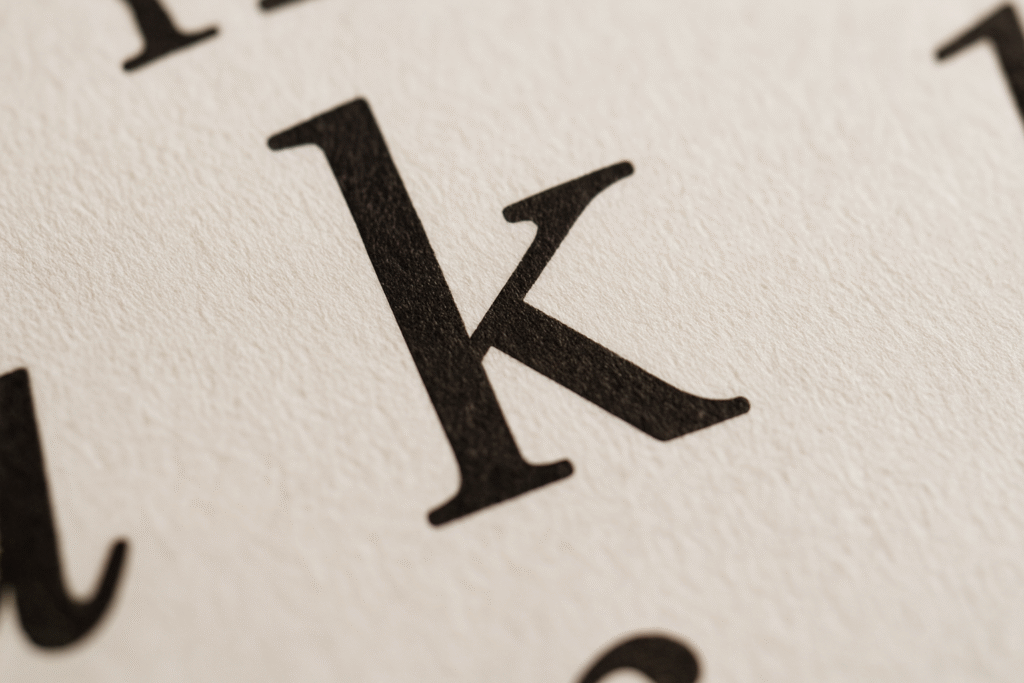
Exploring the Letter “k” — A Kick of Character in the Alphabet
Welcome back to our alphabet exploration series! Today, we set our sights on the spirited, quirky, and slightly rebellious letter “k.” Unlike its neighbors, “k” dances to its own rhythm—often silent, sometimes sharp, but always unforgettable. Whether leading a “kick,” hiding in a “knot,” or bringing quirk to “kaleidoscope,” this letter carries both historical weight and a modern flair.
A Peek into “k”’s Past: Historical Roots
The letter “k” has its roots in the ancient Semitic language where it was known as kaph, which meant “palm of the hand.” The shape resembled an open hand, and its phonetic value was similar to today’s “k.” From there, it made its way into the Greek alphabet as kappa, keeping both its name and sound mostly intact.
The Etruscans and then the Romans adopted kappa, although Latin preferred the letter “c” for the same hard /k/ sound. The letter “k” remained in the Roman alphabet but was seldom used—mainly reserved for abbreviations (like Kalends, the first day of the month in Roman calendars).
It wasn’t until the development of English from Old Germanic and Anglo-Saxon roots that “k” began clawing its way back into usage. And oh, how it made a comeback.
The “Knight” in Shining Armor: Silent but Strong
If you’ve ever wondered why we write “knight” with a “k” when the sound is completely absent, you’re not alone. This comes from Old English, where “kn” was once pronounced as a hard “k” followed by an “n” sound. Over time, the pronunciation softened and the “k” became silent—but the spelling stuck.
Think “knee,” “knock,” “knife,” and “know.” These are all remnants of an older English, frozen in time. So, while “k” may not always make a sound, it still leaves a strong impression.
Typographic Anatomy of “k”
In typography, the lowercase “k” is a fascinating study in balance. It typically consists of a vertical stem and two diagonals—one rising and one falling—that connect at or near the midpoint of the stem.
The classic “k” can vary widely in different typefaces:
• Humanist Fonts tend to give it a soft, calligraphic feel.
• Geometric Fonts make it clean, minimalist, and symmetric.
• Grotesque or Neo-Grotesque Fonts often use sharp angles to convey utility and strength.
• Script Fonts may loop or exaggerate its arms to dance across the page.
Some type designers even use the “k” to show off their flair—designing expressive arms that create dramatic tension between the vertical and the diagonals.
How to Draw the Letter “k”
Drawing a well-balanced lowercase “k” can be a bit of a challenge—especially if you’re aiming for symmetry and character consistency.
1. Start with the Stem:
Draw a straight vertical line. This line should be consistent in weight with the other lowercase letters you’ve created—similar to the stem of an “l” or “b.”
2. Mark the Intersection:
About halfway up the stem, mark the point where your diagonal arms will meet.
3. Draw the Upper Arm:
From the midpoint, draw a line that ascends diagonally up and to the right. The angle can be soft or sharp depending on your style.
4. Add the Lower Leg:
From the same midpoint, draw a diagonal down and outwards. This can either curve slightly (in more friendly fonts) or be a hard-edged stroke.
Tip: Consistency is key. The angles between the arms and stem should complement other angular letters in your typeface, like “x” or “v.”
Cultural Appearances
• Mathematics & Science: “k” is the symbol for kilo, meaning a thousand. It’s also used for Boltzmann’s constant in physics.
• Internet Culture: In texting, responding with just “k” is often seen as passive-aggressive or dismissive. (Pro tip: If you want to stay friends, add an “o”!)
• Pop Culture: The letter often appears in brands that want a cool or edgy vibe—think “Kool,” “Krispy Kreme,” or “K-pop.”
• Typography in Kids’ Products: The letter “k” is often rendered in playful forms in books and toys to emphasize its kinetic energy.
Fun & Unique Facts
• Scrabble Value: In the game of Scrabble, “k” is worth a respectable 5 points—neither too rare nor too common.
• “K” as a Unit of Kindness: In social media slang, “kudos” often shortens to “k,” symbolizing praise or acknowledgment.
• Sports Milestone: In baseball, a “K” is the symbol for a strikeout. If it’s backward, it means the batter didn’t swing. Oof.
Why the Letter “k” Matters in Design
Designers often love the letter “k” because it can stand tall and stylish. It’s a natural fit for bold headlines, logos, and expressive typography. The structure allows a lot of room for creativity while still being clearly legible. And let’s face it—there’s something intrinsically cool about a “k.” Maybe it’s the angles. Maybe it’s the mystery.
In Summary:
The lowercase “k” may not be the alphabet’s loudest letter, but it’s a master of style, history, and subtle impact. From medieval knights to cutting-edge design, “k” brings character and elegance wherever it goes. So next time you draw, type, or encounter a “k,” take a moment to appreciate the little letter with a big kick.